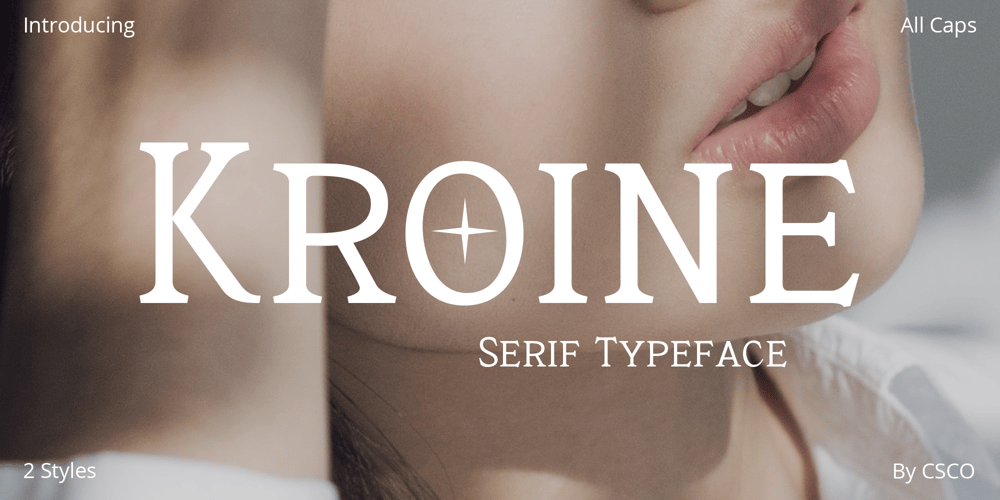
Kroine Font Family was designed by Trio Nazzar Saputra, Wahyu Hadi Yuana and published by Craft Supply Co. Kroine contains 2 styles and family package options. Meet Kroine – Versatile Serif TypefaceKroine redefines versatility. It’s a serif that suits any display size.Subtle Elegance in Low ContrastIts low contrast strokes offer modern simplicity. Also, Kroine delivers a clean reading experience. The delicate serifs enhance legibility, perfect for extended text.Designed for FlexibilityKroine thrives in both small and large displays. Furthermore, its uniform thickness ensures consistency. Thus, it becomes an ideal choice for diverse design needs.